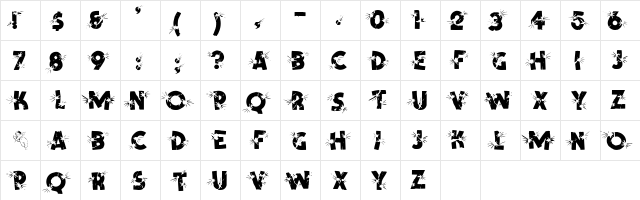
Long Train 1 Regular Font Preview
Long Train 1 Regular
Long Train 1 Regular Font Details
Design Context for Long Train 1 Typeface
Long Train 1 is a composed and adaptable typeface that performs quietly and consistently across a wide range of design contexts.